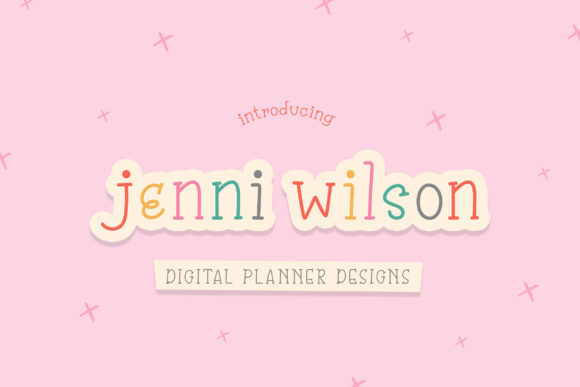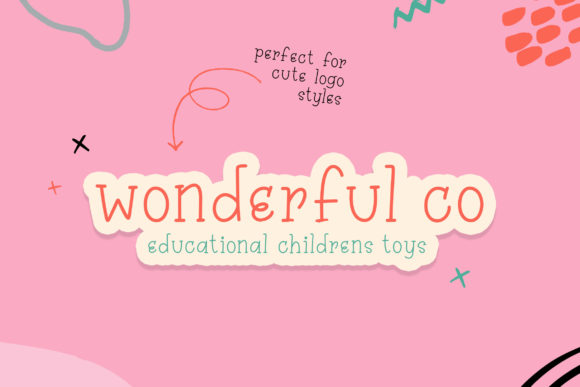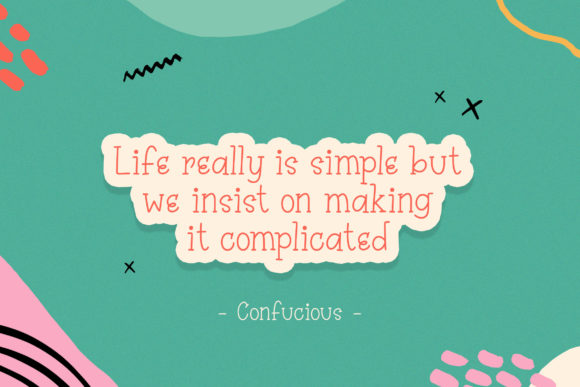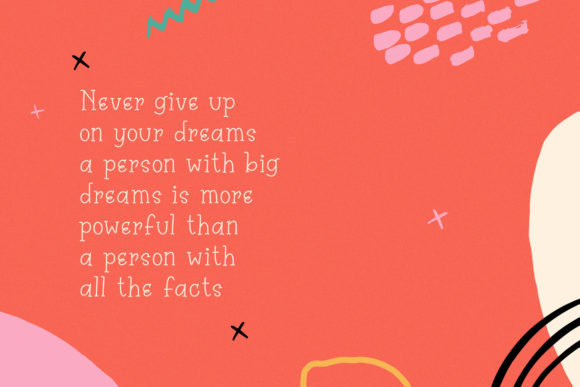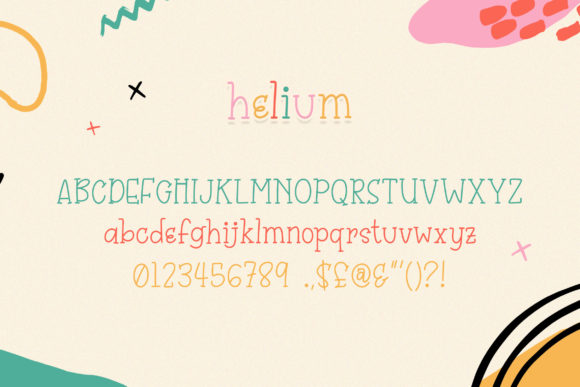
Introducing Helium Font: The Cute Handwritten Font for Kids and School Projects
Are you looking for a font that can add a touch of childlike playfulness to your designs? Look no further than Helium Font! This adorable handwritten font is perfect for kids and school projects, and is sure to brighten up any design. In this article, we’ll take a closer look at Helium Font, its features, and how you can use it to create engaging and fun designs.
What is Helium Font?
Helium Font is a cute handwritten font that is designed to bring a sense of playfulness and fun to your designs. Its childlike charm makes it perfect for kids and school projects, and its versatility ensures that it can be used in a wide range of design applications. Whether you’re creating posters, flyers, or worksheets, Helium Font is sure to add a touch of personality to your designs.
Features of Helium Font
So, what makes Helium Font so special? Here are just a few of its key features:
• Handwritten style: Helium Font has a unique, handwritten style that gives it a personal and playful feel.
• Childlike charm: The font’s childlike charm makes it perfect for kids and school projects.
• Versatile: Helium Font can be used in a wide range of design applications, from posters and flyers to worksheets and more.
• Easy to read: Despite its playful style, Helium Font is easy to read, making it perfect for designs that require a lot of text.
How to Use Helium Font
So, how can you use Helium Font in your designs? Here are a few ideas to get you started:
• Kids’ party invitations: Create fun and playful invitations for kids’ parties using Helium Font.
• School projects: Use Helium Font to add a touch of personality to school projects, such as posters, presentations, and worksheets.
• Children’s book illustrations: Helium Font is perfect for children’s book illustrations, adding a touch of whimsy and fun to your designs.
• Crafting projects: Use Helium Font to add a personal touch to your crafting projects, such as signs, banners, and more.
Tips for Using Helium Font
Here are a few tips for using Helium Font in your designs:
• Use it sparingly: While Helium Font is playful and fun, it can be overwhelming if used too much. Use it sparingly to add a touch of personality to your designs.
• Pair it with other fonts: Helium Font pairs well with other fonts, such as sans-serif fonts. Experiment with different font combinations to find the perfect look for your design.
• Experiment with colors: Helium Font looks great in a variety of colors. Experiment with different colors to find the perfect look for your design.
Helium Font is a cute handwritten font that is perfect for kids and school projects. Its childlike charm and versatility make it a great addition to any design. With its easy-to-read style and playful personality, Helium Font is sure to brighten up any design. Whether you’re a designer, crafter, or teacher, Helium Font is a great choice for adding a touch of fun and personality to your designs.